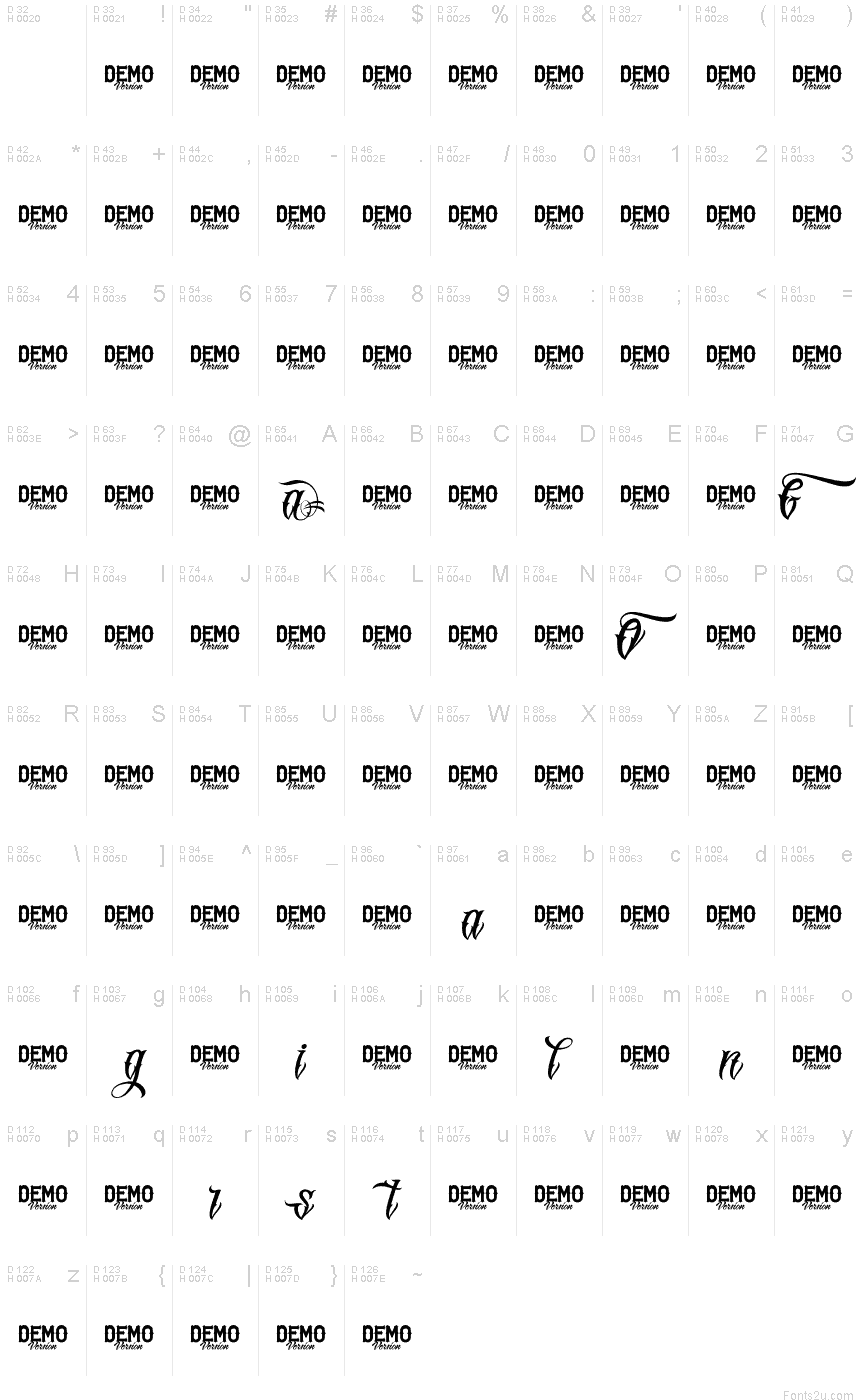
OriginalGangstA by Gilang Purnama Jaya of Decade Typefoundry is a free old-school calligraphic script with a strong tattoo-lettering influence. Its dense upright letters mix sharp blackletter-like edges with sweeping capitals and long looping flourishes. The contrast is immediate.
A tattoo studio or streetwear label could use it for logos, apparel graphics, and promotional posters. The oversized swashes turn names into emblem-like lettering, making the font especially convincing for brands rooted in custom ink and old-school urban style.